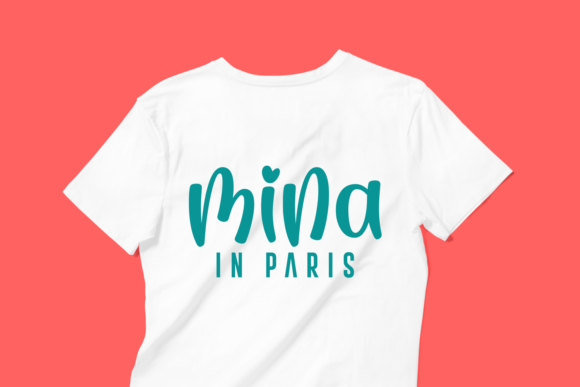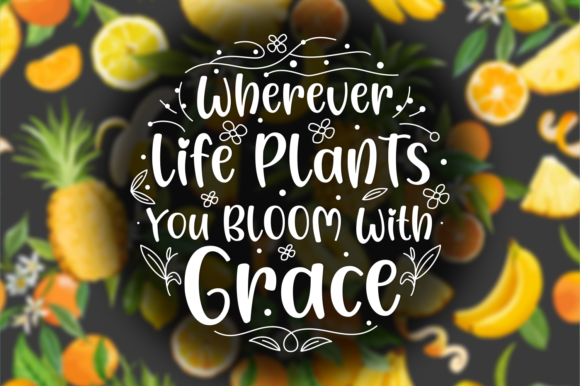
Carmila Font
db-ku.com - Script & Handwritten -- Carmila is a beautiful and round lettered handwritten font with a unique feel and a stunning impact. It will add a luxury spark to any design project that you wish to create!